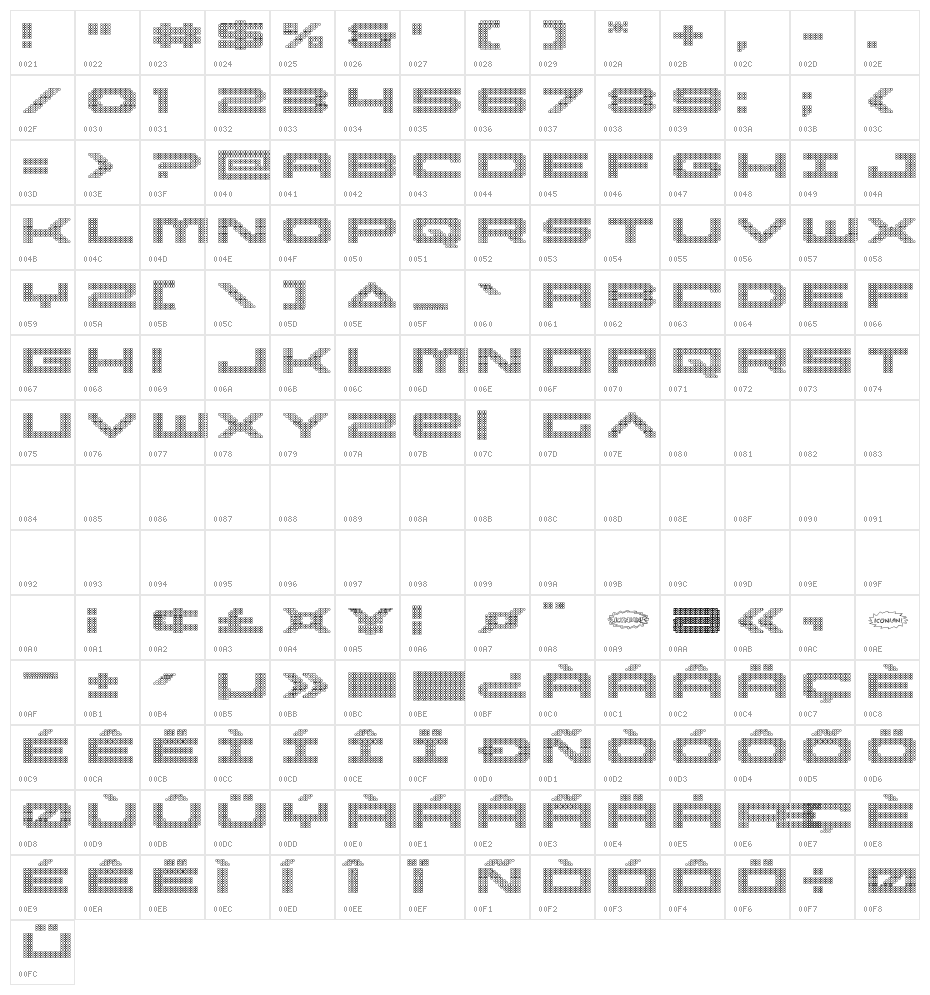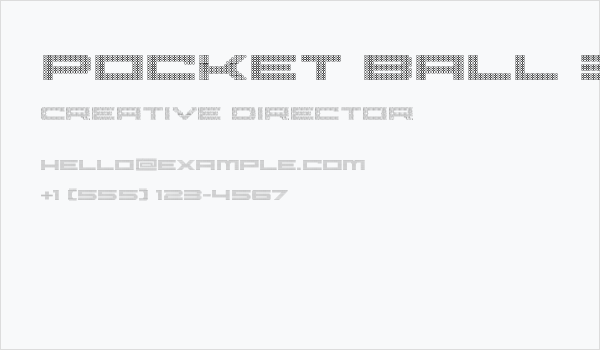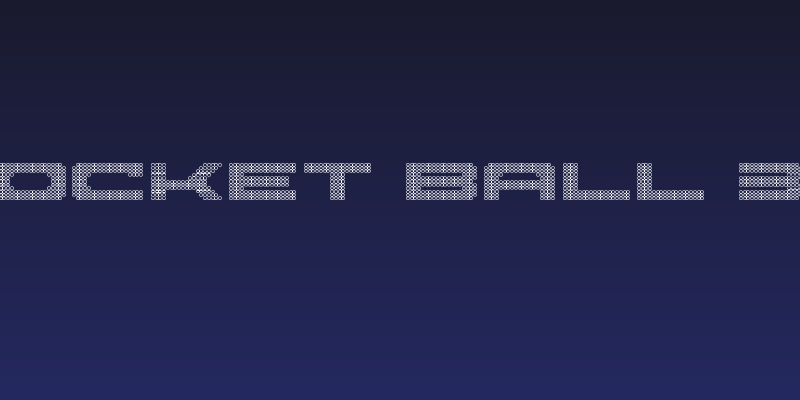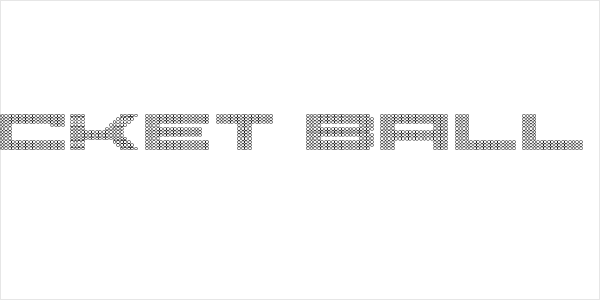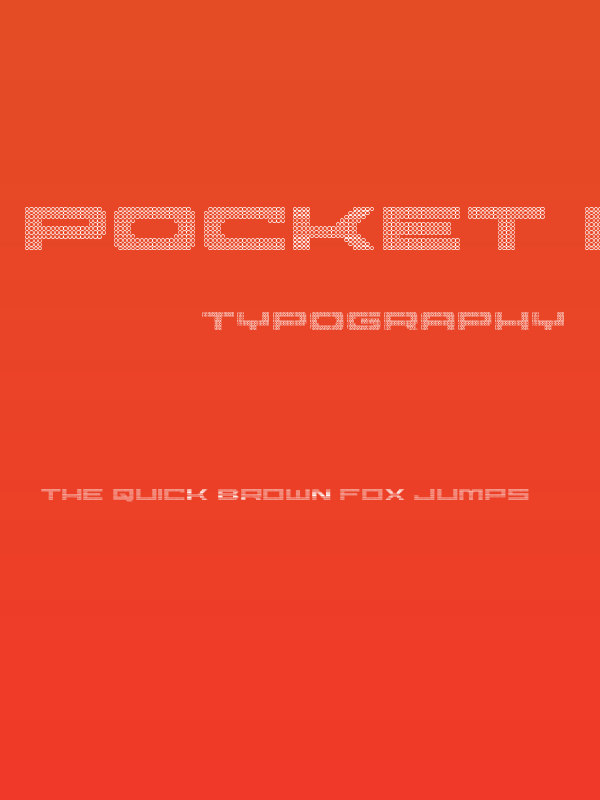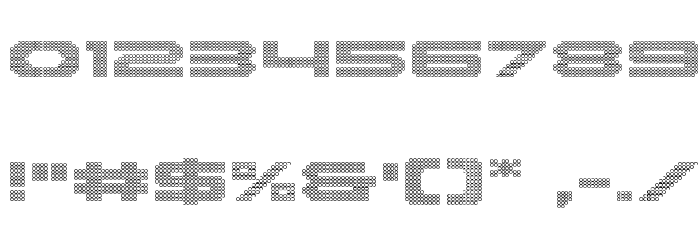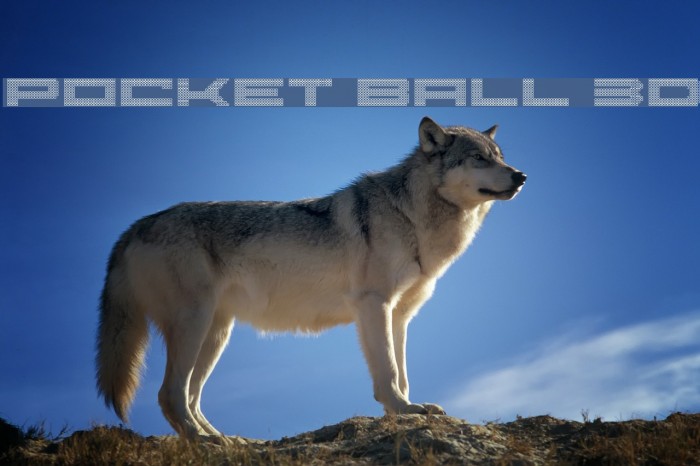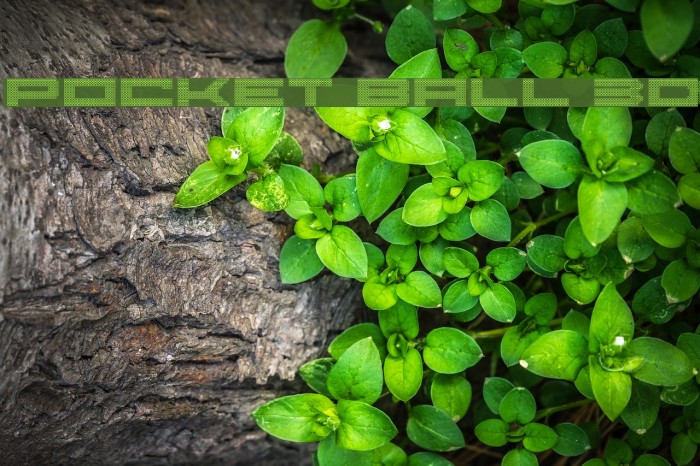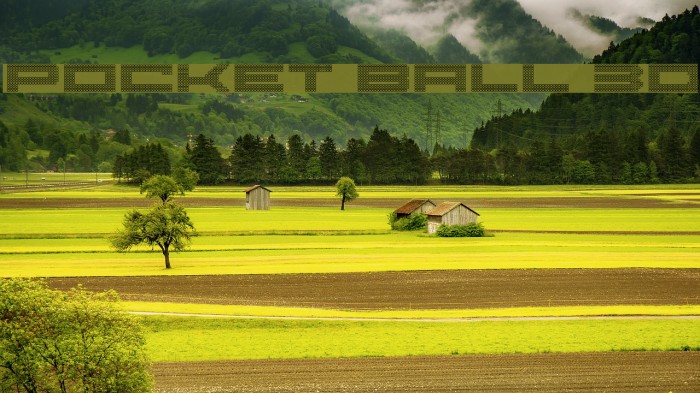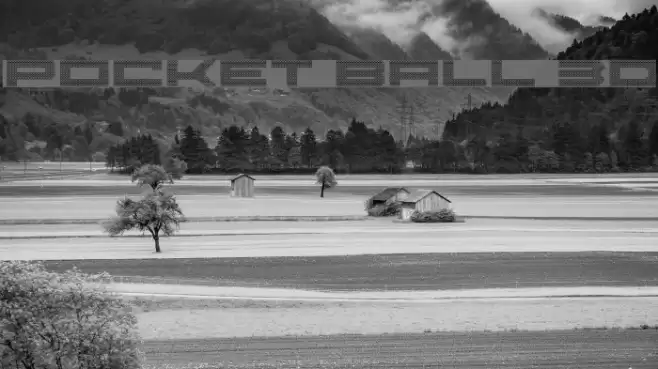
Pocket Ball 3D Font
Pocket Ball 3D Description
This font features a unique, dotted pattern that gives it a three-dimensional, textured appearance. Each character is constructed with a series of small, evenly spaced dots, creating a mesh-like effect that is both modern and eye-catching. The uppercase and lowercase letters maintain a consistent style, with clean lines and geometric shapes. The numerals and special characters follow the same design principles, ensuring a cohesive look across all elements. This font is particularly suitable for projects that require a futuristic or digital aesthetic, as its distinctive style stands out in both print and digital media.
| Use Case | Logos, Headlines, Digital Art |
| Proposed Projects | Ideal for digital art, tech branding, futuristic posters, and video game graphics. |